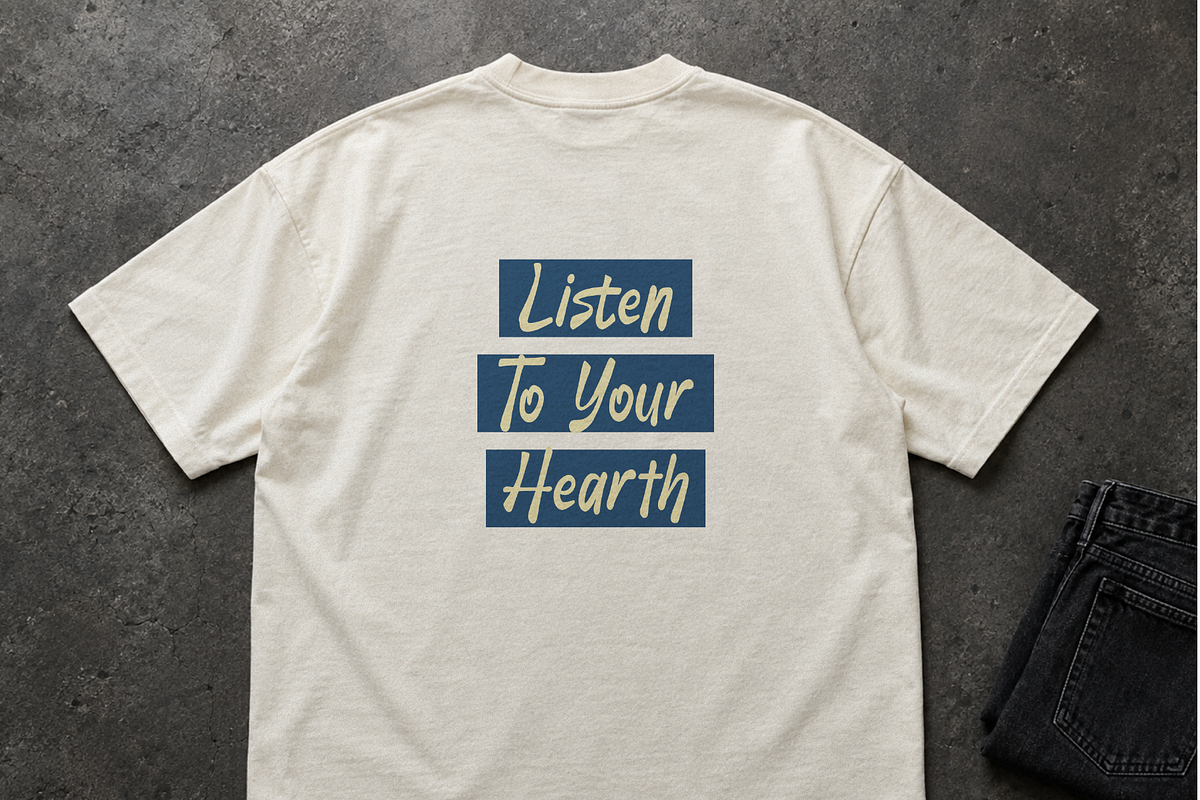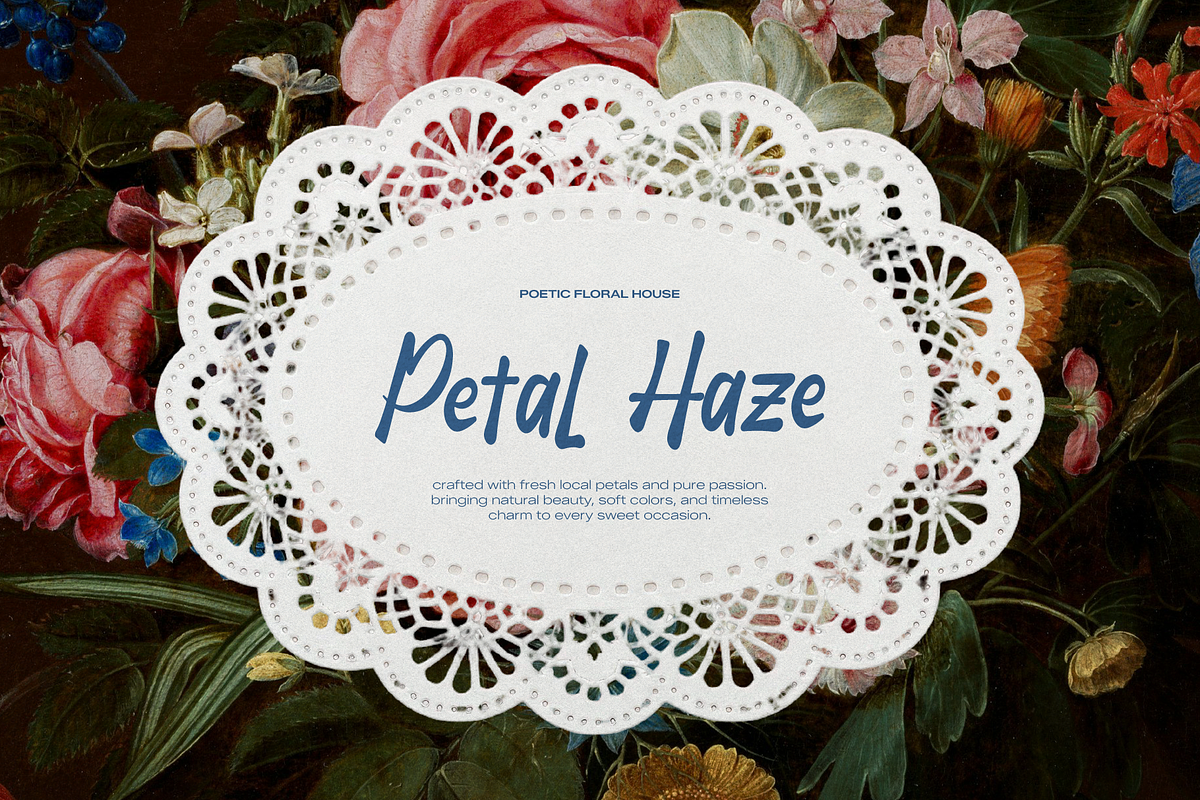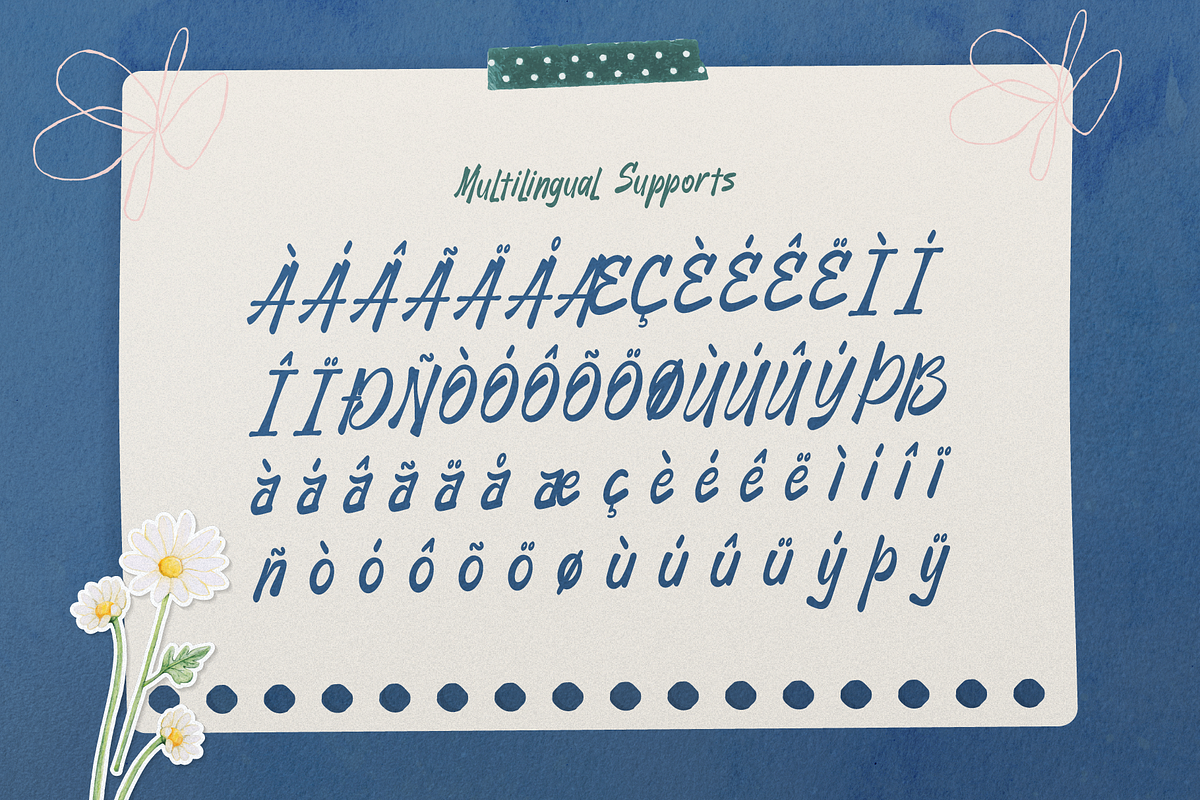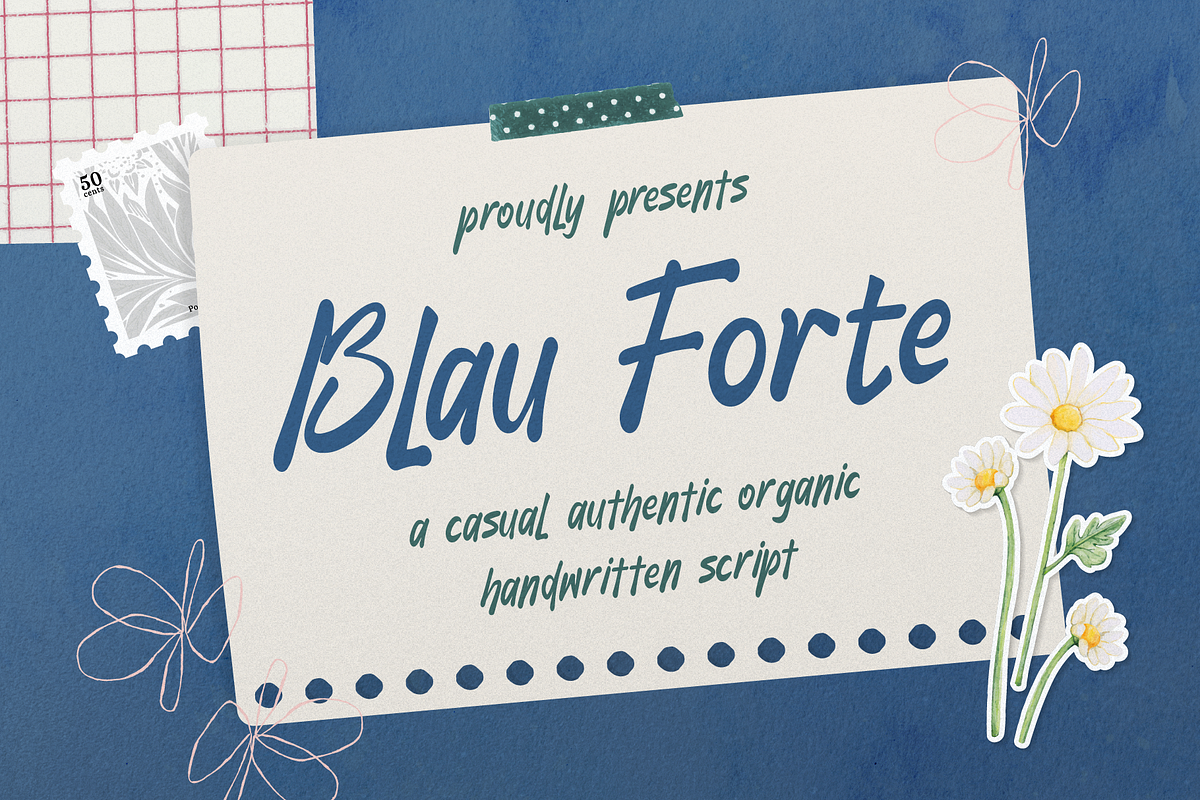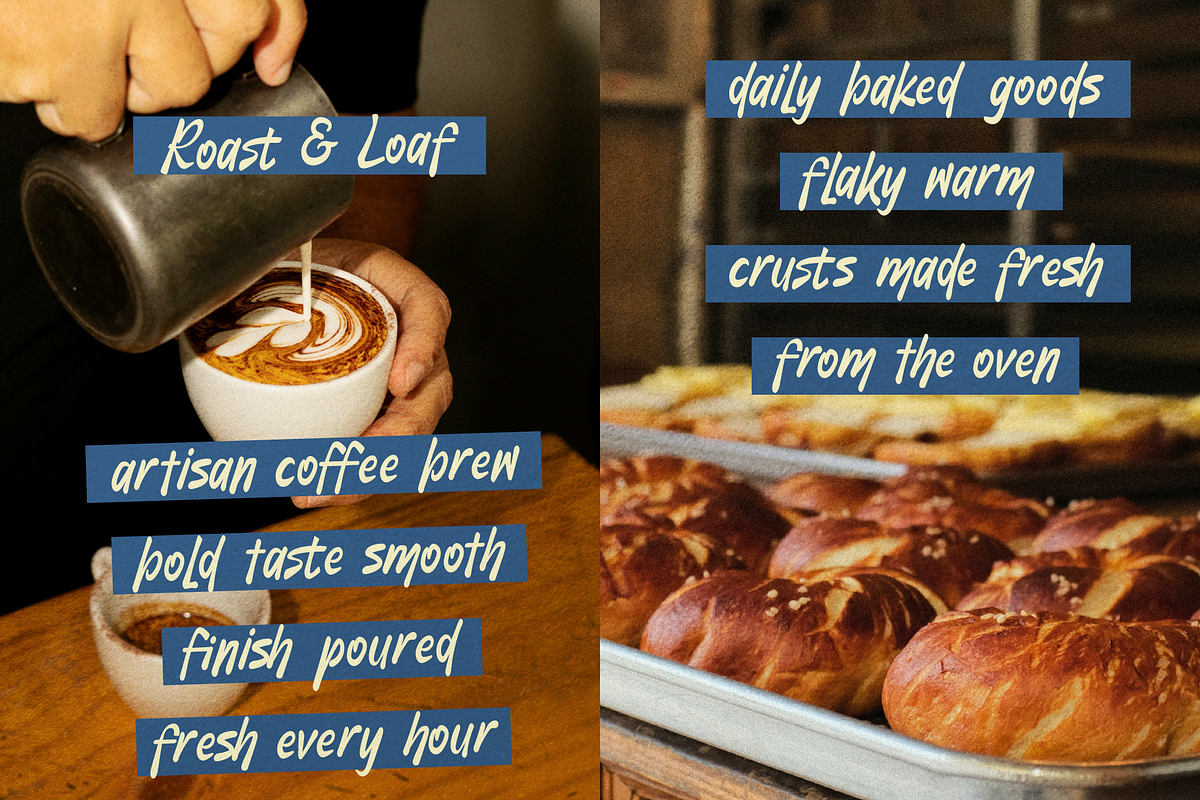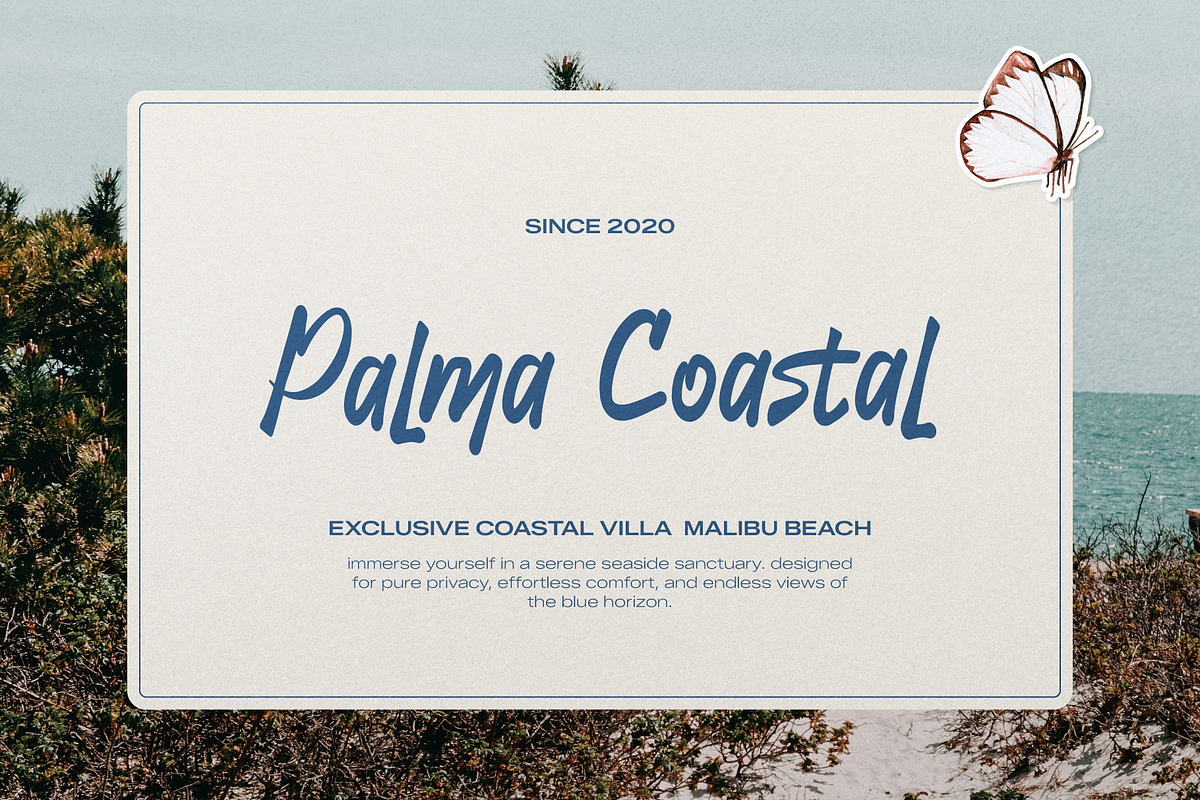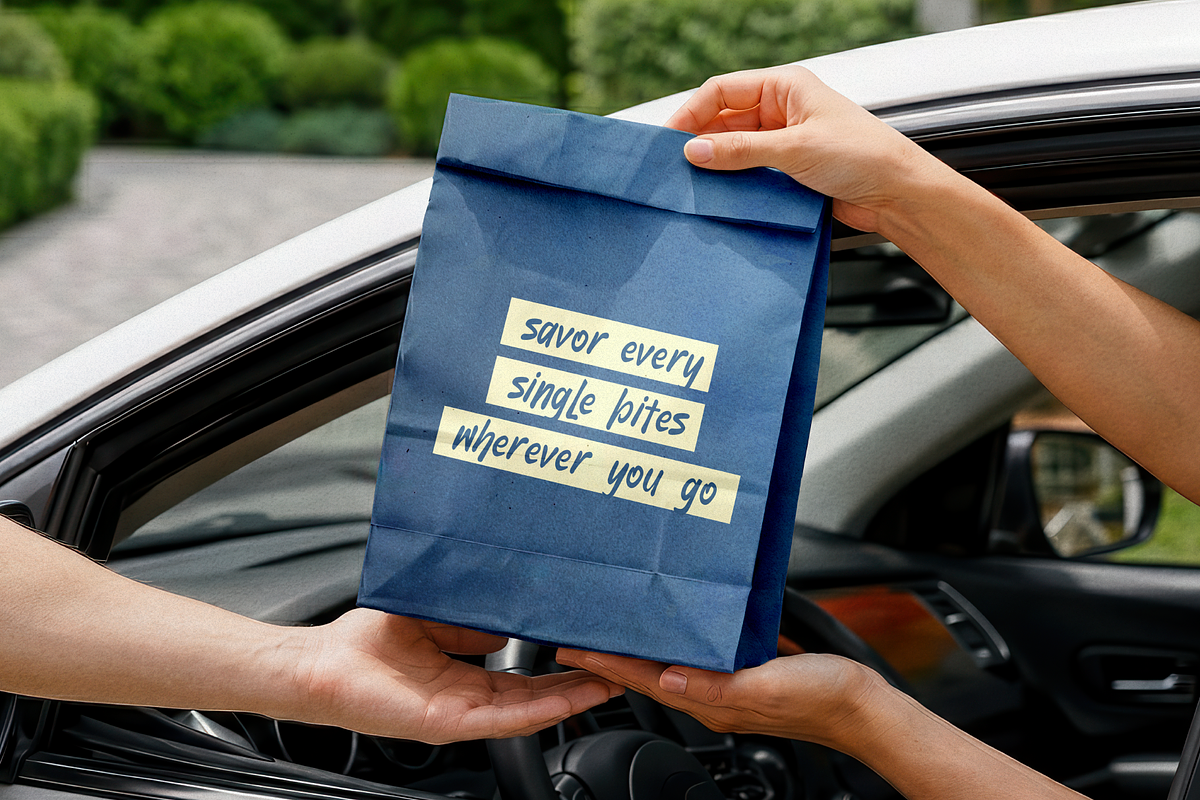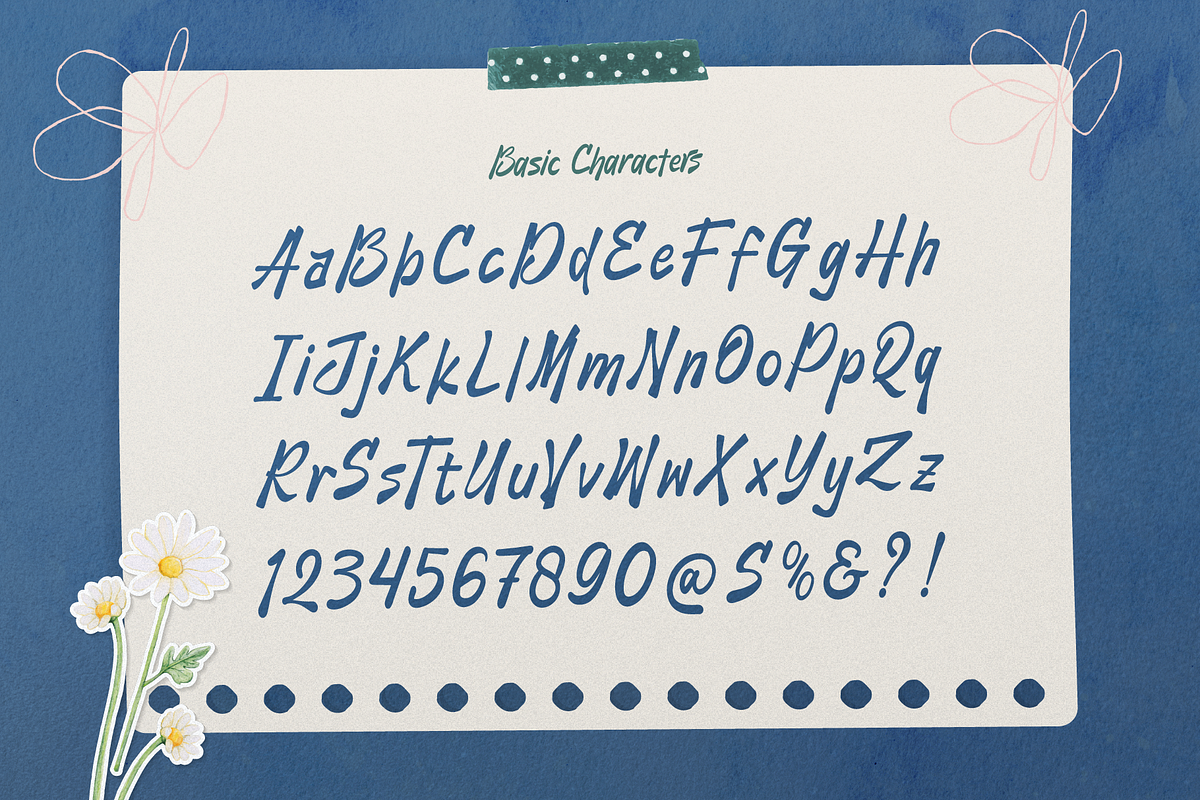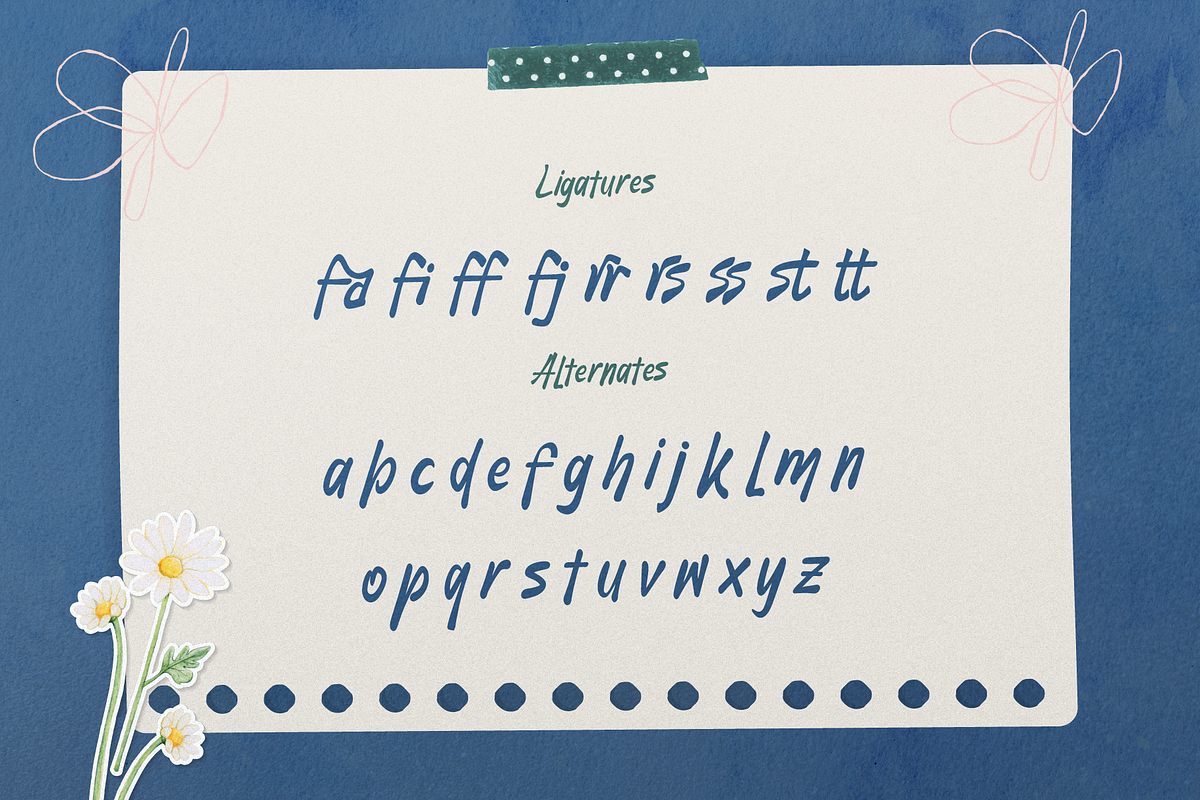
Blau Forte | Casual Handwritten
Blau Forte | Casual Handwritten, from Gracetypestudio, suitable for any projects such as: logos, branding projects, homeware designs, product packaging, mugs, quotes, posters, shopping bags, t-shirts, book covers, name card, invitation cards, greeting cards, label, photography, watermark, special events, and all your other lovely projects that need a Handwritten Font taste.
Alternate and Ligature